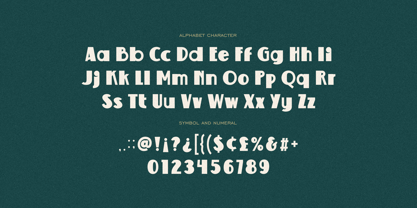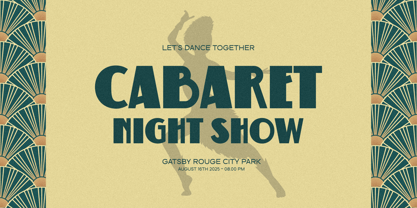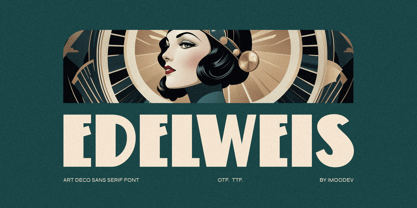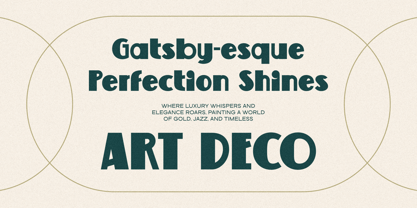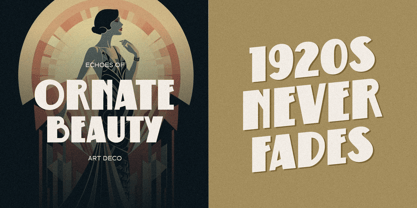
Edelweis
by Imoodev
The Edelweis Font Family was designed by Aulia Savira Putri and published by Imoodev. Edelweis contains 1 styles. More about this family
The Edelweis font is serving peak Art Deco drama and unapologetic retro glamour. It's a bold, geometric sans-serif font that instantly teleports you to the roaring 1920s with its jazzy flair and luxurious curves. Perfect for posters, branding, editorial headers, luxury packaging, album cover, music, retro signane, and anything needing a dash of old-school elegance and contemporary punch.
Designers: Aulia Savira Putri
Foundry: Imoodev